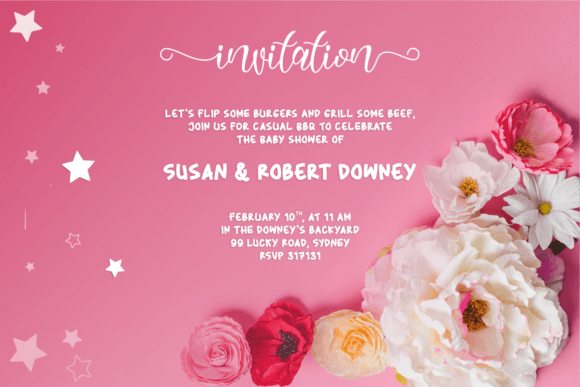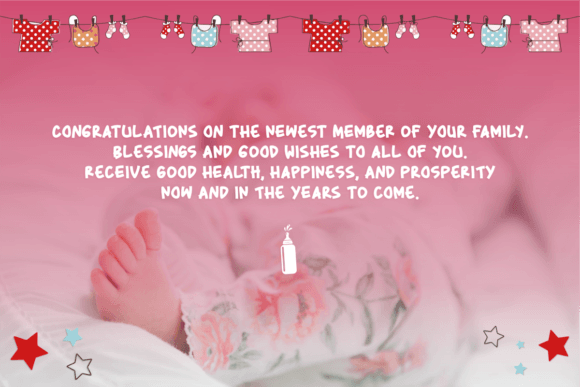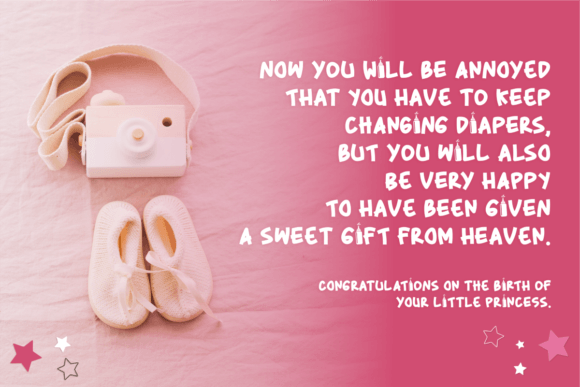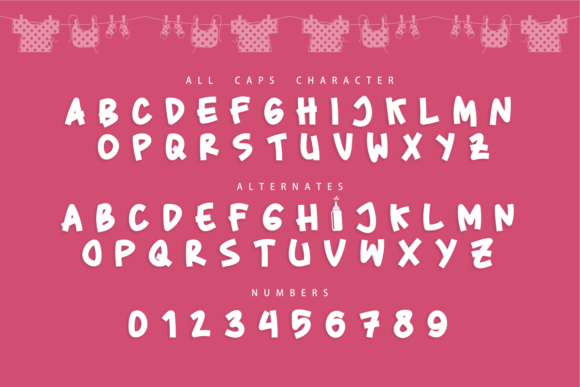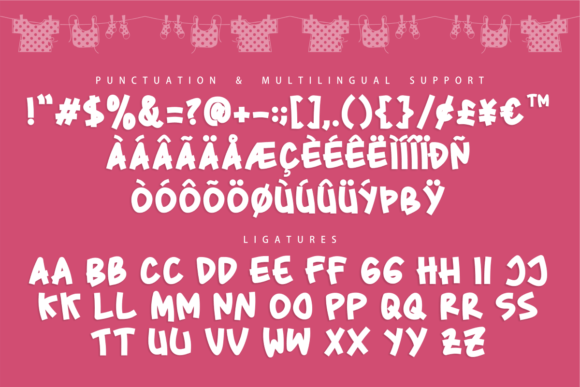
Baby Pink Font: A Cute and Playful Display Font for Your Creative Projects
Are you looking for a font that can add a touch of sweetness and innocence to your designs? Look no further than the Baby Pink font! This adorable display font is perfect for a variety of creative projects, from children’s games and quotes to titles, brand names, book covers, and posters. In this article, we’ll take a closer look at the Baby Pink font and explore its features, uses, and benefits.
What is Baby Pink Font?
Baby Pink is a cute and cartoon-like display font that is sure to capture the hearts of designers and crafters alike. Its playful and whimsical design makes it an excellent choice for projects that require a touch of beauty and charm. The font’s soft, rounded edges and gentle curves evoke a sense of warmth and friendliness, making it perfect for designs that need to appeal to a younger audience.
Features of Baby Pink Font
The Baby Pink font comes with a range of features that make it an excellent choice for designers and crafters. Some of its key features include:
- Cute and playful design: The Baby Pink font has a unique and adorable design that is sure to stand out in any project.
- Cartoon-like style: The font’s cartoon-like style makes it perfect for children’s games, quotes, and other projects that require a playful touch.
- Display font: The Baby Pink font is a display font, making it perfect for titles, headings, and other prominent text elements.
- Easy to read: Despite its playful design, the Baby Pink font is easy to read, making it suitable for use in a variety of projects.
Uses of Baby Pink Font
The Baby Pink font is a versatile font that can be used in a variety of creative projects. Some of its most popular uses include:
- Children’s games: The Baby Pink font is perfect for children’s games, puzzles, and other interactive activities.
- Quotes and titles: The font’s playful design makes it an excellent choice for quotes, titles, and other prominent text elements.
- Brand names: The Baby Pink font can be used to create unique and memorable brand names that stand out from the crowd.
- Book covers: The font’s cute and playful design makes it perfect for book covers, especially for children’s books and young adult fiction.
- Posters: The Baby Pink font can be used to create eye-catching posters for a variety of events and promotions.
Benefits of Using Baby Pink Font
The Baby Pink font offers a range of benefits for designers and crafters. Some of its key benefits include:
- Unique and memorable designs: The Baby Pink font can help you create unique and memorable designs that stand out from the crowd.
- Playful and engaging: The font’s playful design can help you create engaging and interactive designs that appeal to a younger audience.
- Versatile: The font’s versatility makes it suitable for use in a variety of creative projects.
Tips for Using Baby Pink Font
Here are a few tips for using the Baby Pink font in your designs:
- Use it sparingly: The Baby Pink font is a display font, so it’s best to use it sparingly to avoid overwhelming your design.
- Pair it with other fonts: The Baby Pink font can be paired with other fonts to create a unique and visually appealing design.
- Experiment with colors: The font’s playful design makes it perfect for experimenting with different colors and color combinations.
In conclusion, the Baby Pink font is a cute and playful display font that is perfect for a variety of creative projects. Its unique design, versatility, and ease of use make it an excellent choice for designers and crafters who want to add a touch of beauty and charm to their designs.